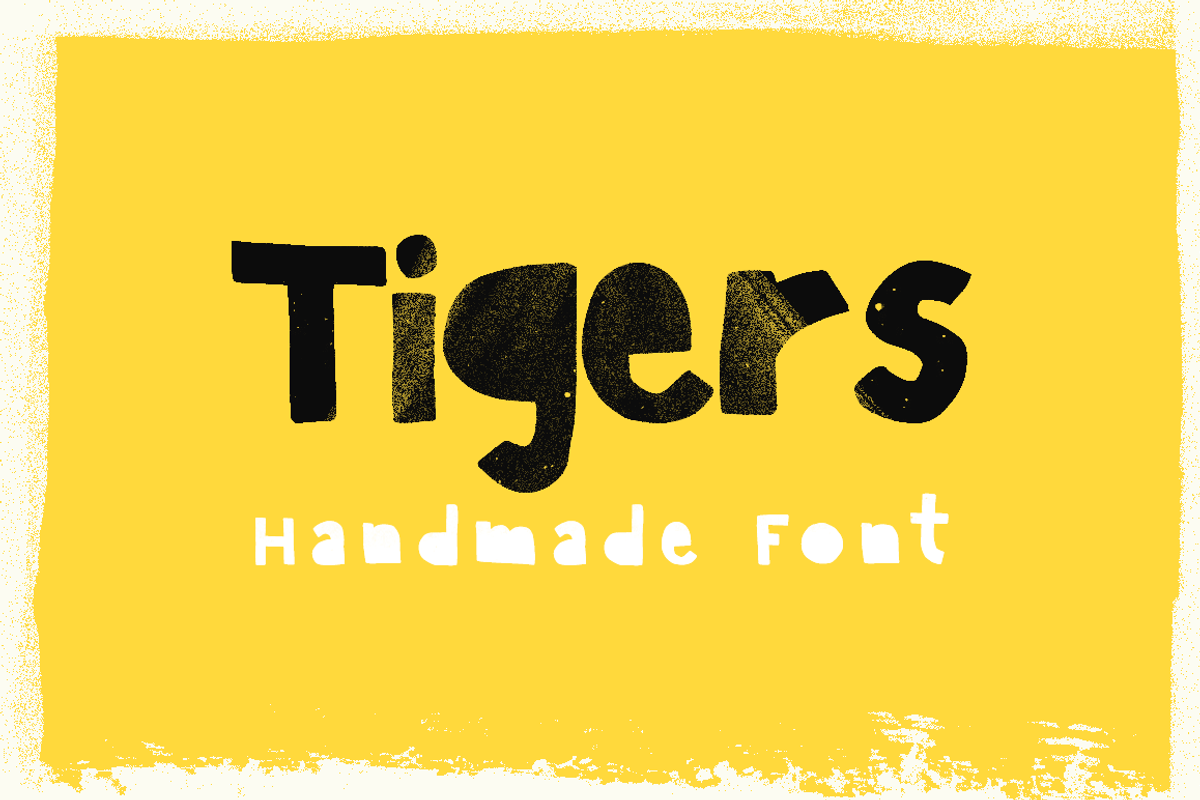
Tigers — Block Font Free Download is a bold and dynamic typeface designed to make a strong visual statement. With its thick, sturdy letterforms and impactful design, Tigers is perfect for sports logos, branding, posters, headlines, and any design project that needs high visibility and energy.
This block-style font brings a modern, powerful edge to your creative projects while ensuring excellent readability. Tigers includes uppercase and lowercase letters, punctuation, multilingual support, and works seamlessly on both Mac and Windows systems.